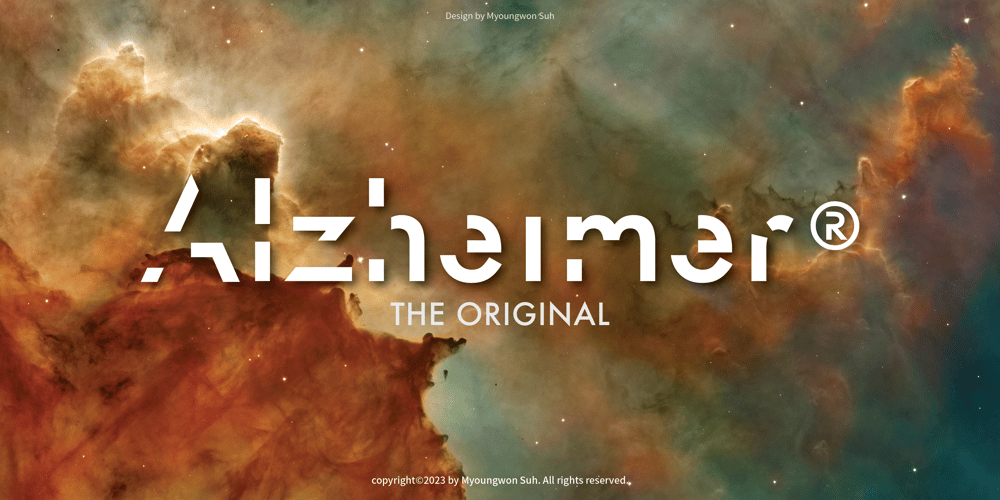
Alzheimer
Alzheimer font
Alzheimer Font Family was designed by Myoungwon Suh and published by Designsuh. Alzheimer contains 3 styles and family package options. The ‘Alzheimer’ font has a shape in which parts of the font have been erased as if memories are being erased. The remaining letters, which are minimal enough to be distinguished from other letters, create a different feeling, like an alien language. It is useful for creating titles or logos rather than expressing text.It was produced thinking of all of us adults whose memories are slowly disappearing. May they be full of health and love.